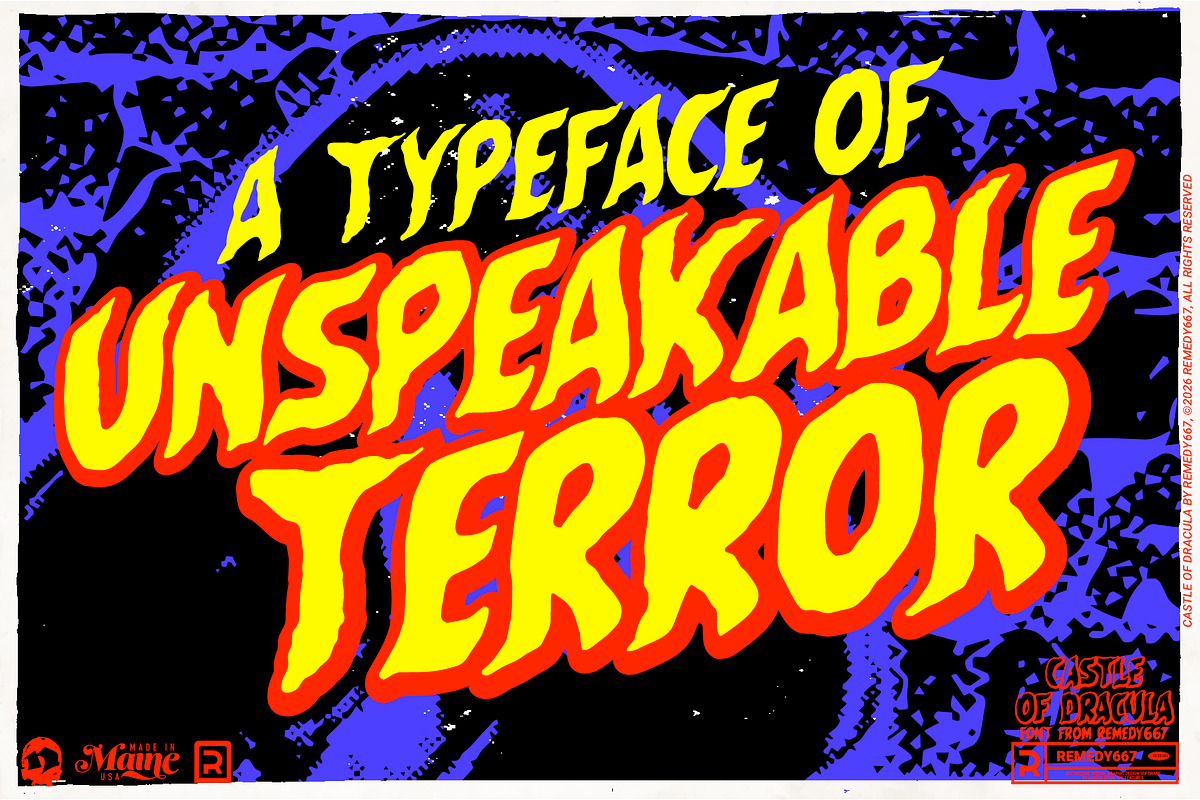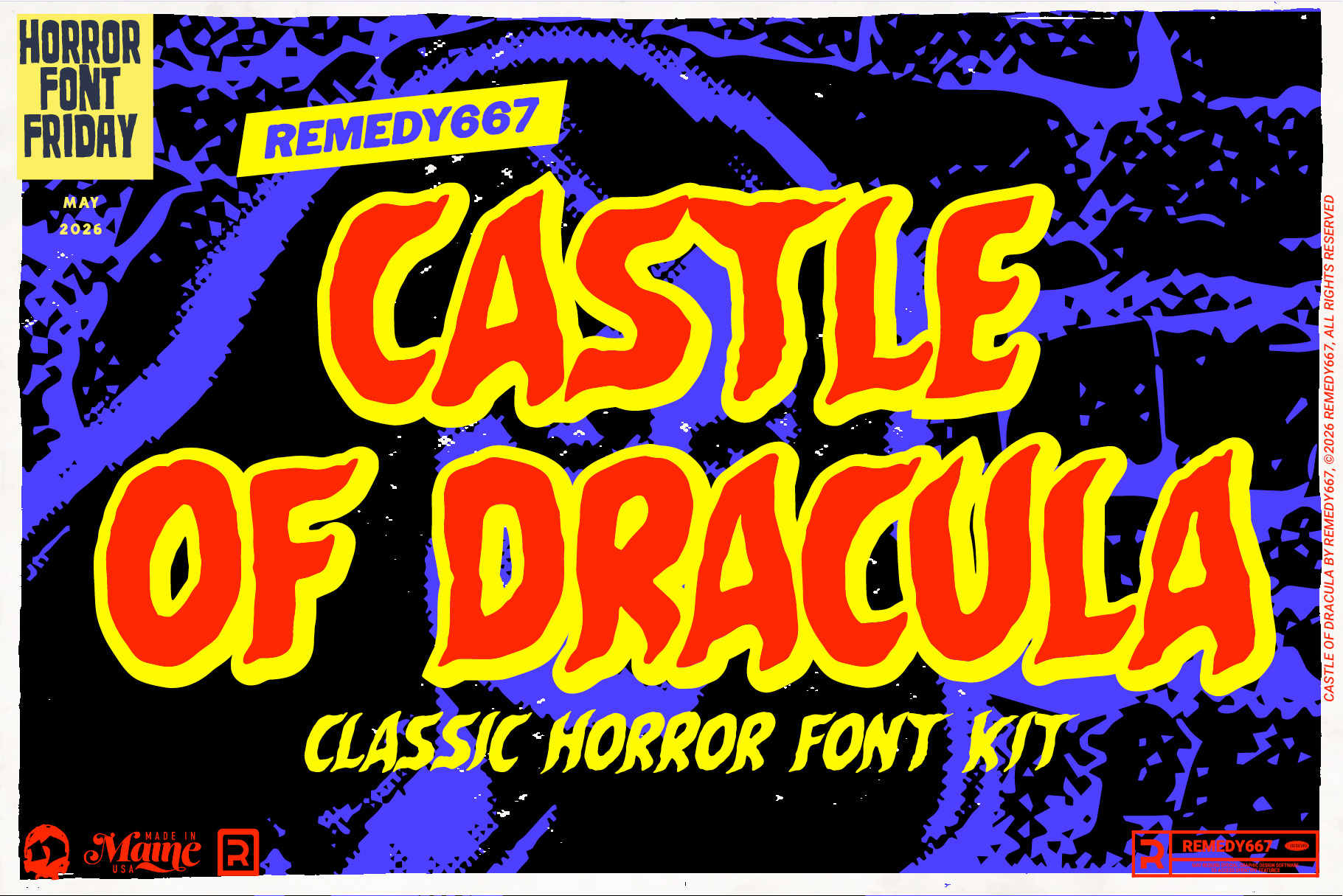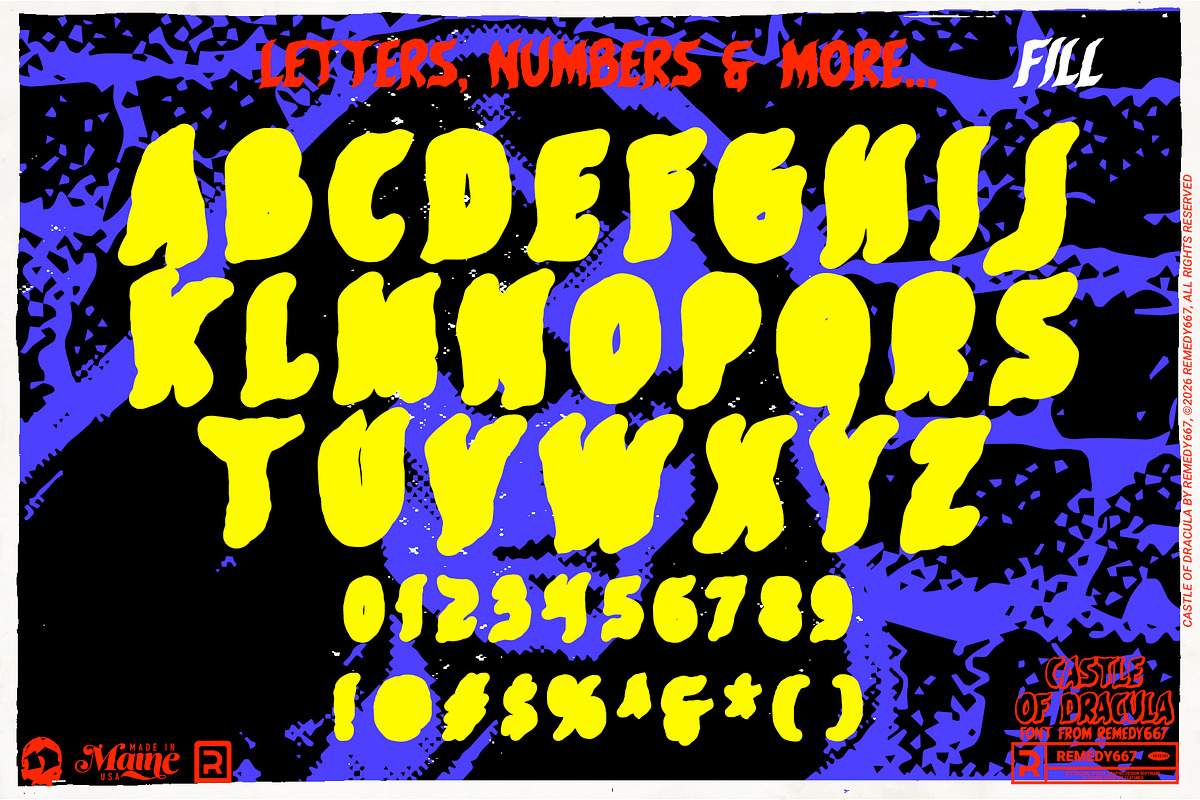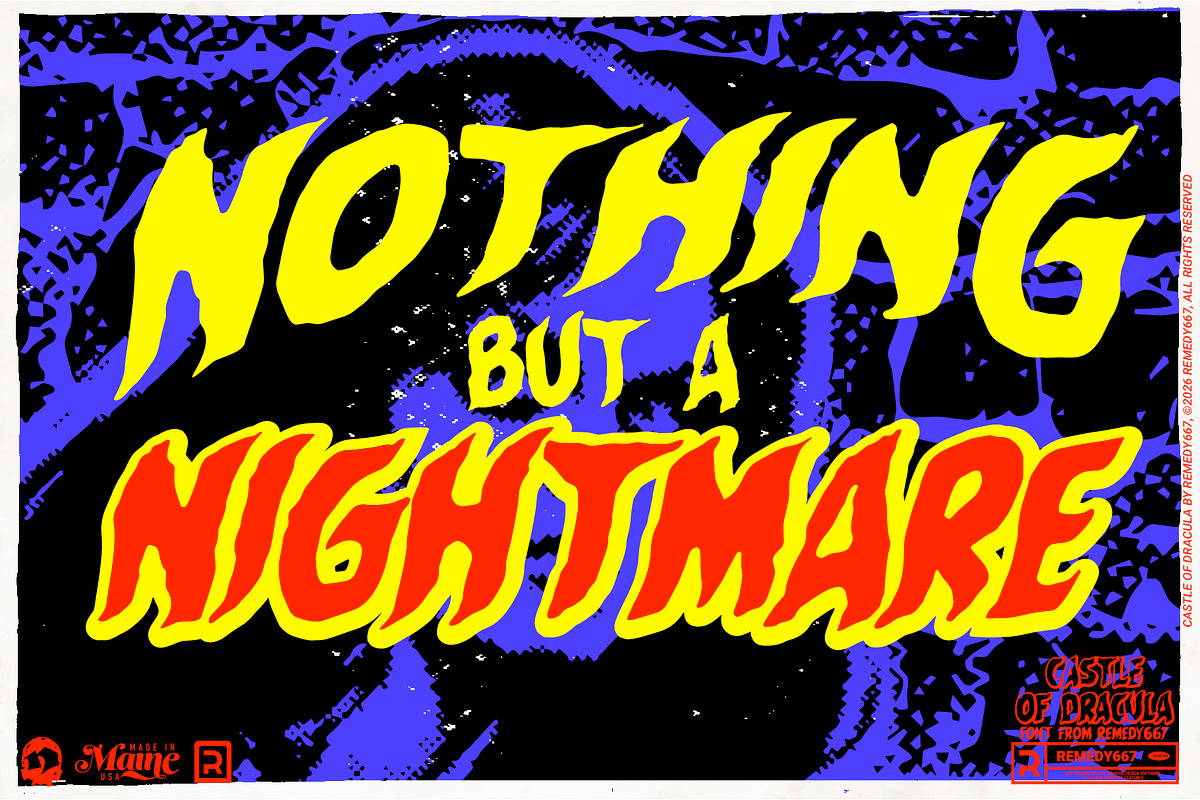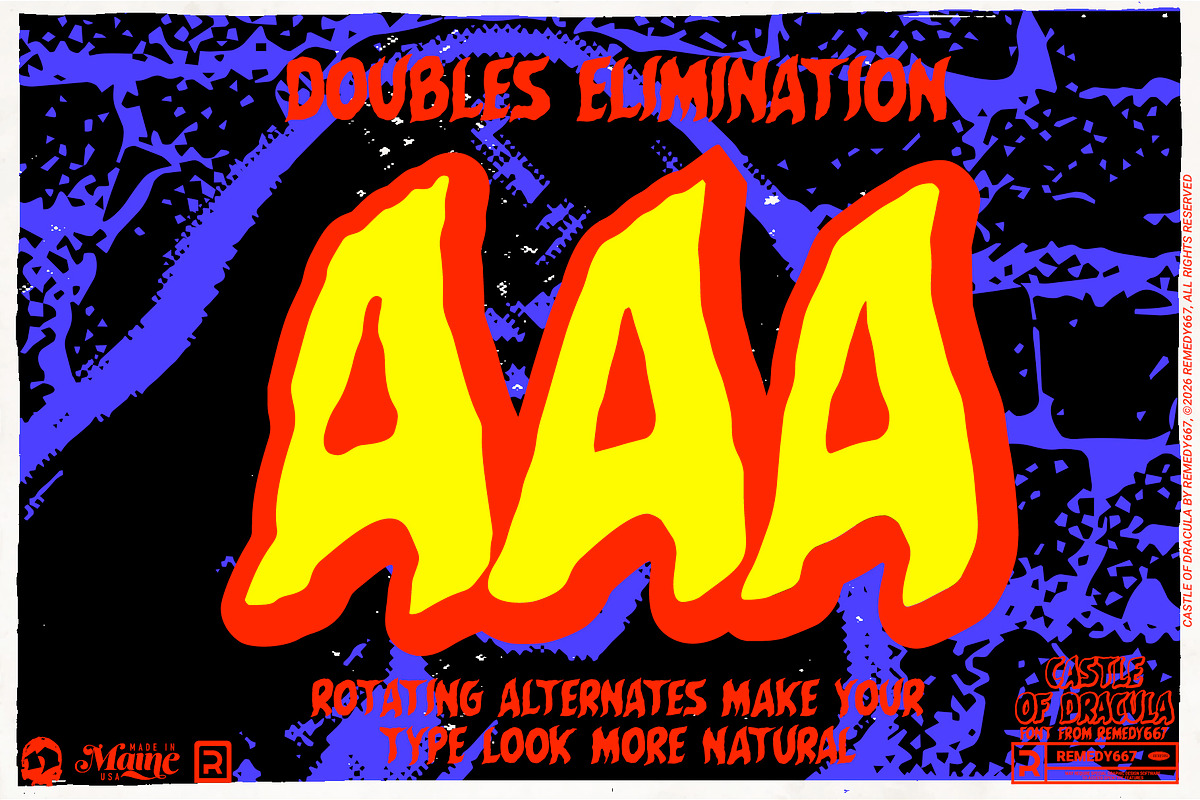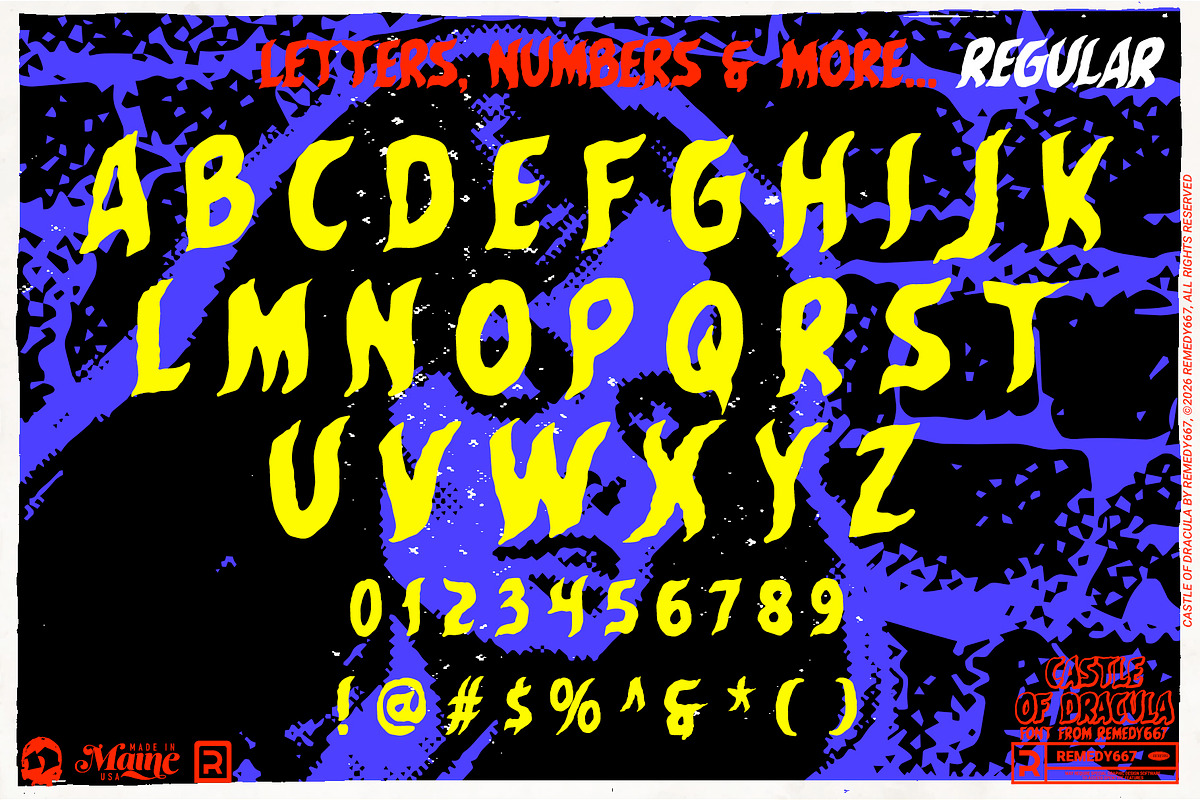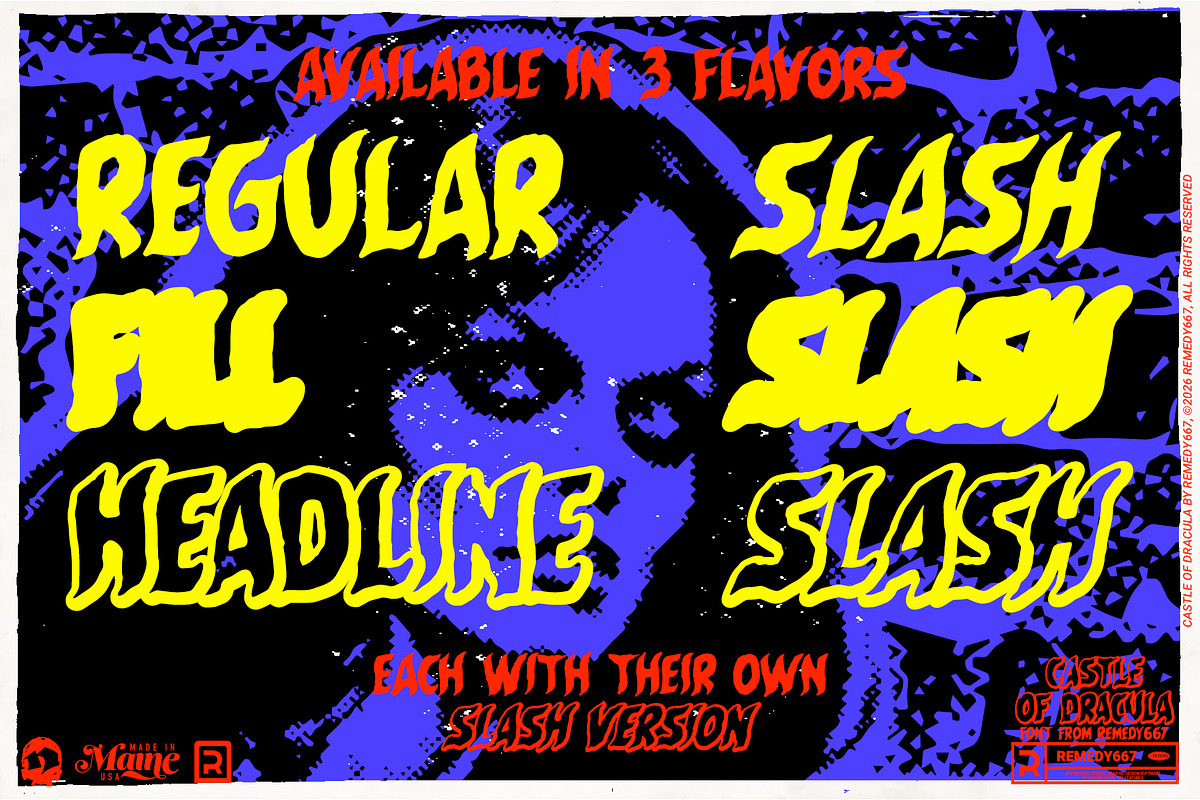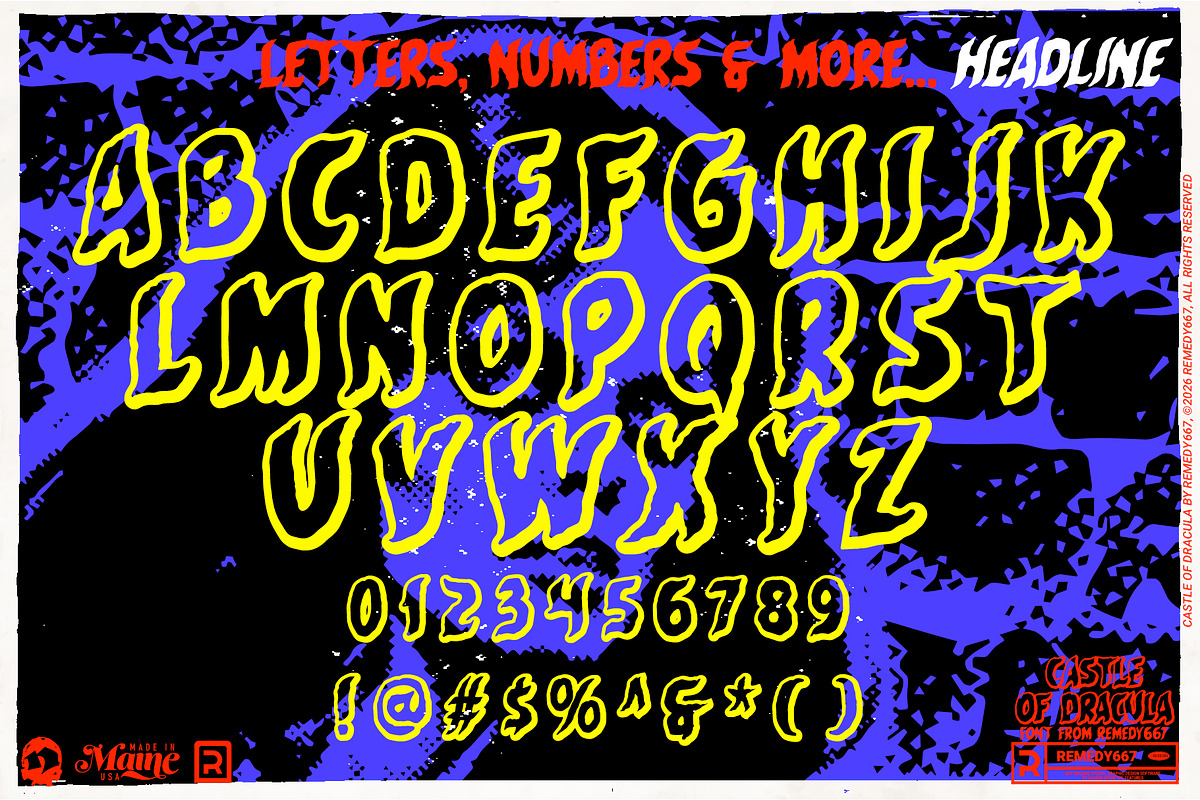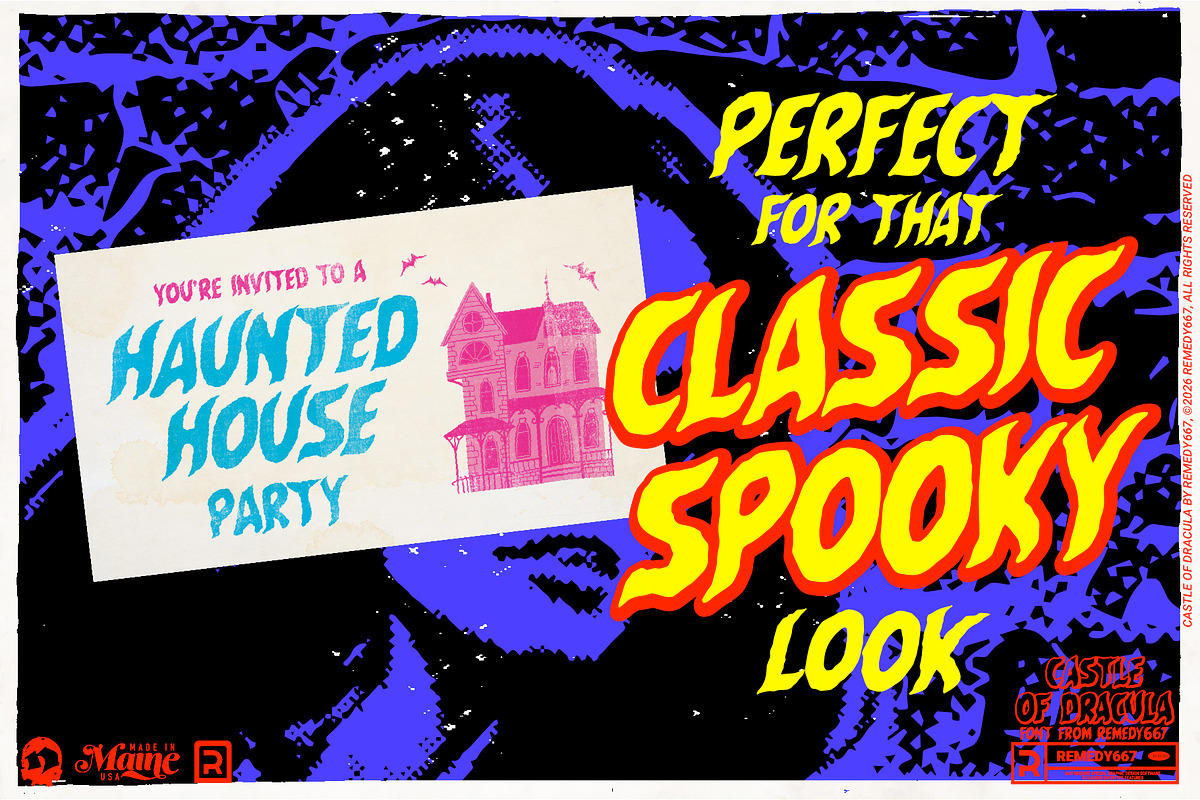
Castle of Dracula - Font
Welcome, foolish mortals, to the Castle of Dracula! Inspired by the fang-filled fury of Where Monsters Dwell #17 (1972), this typeface rises from the comic crypt with all the theatrical terror of classic vampire tales. Each character looms like a castle spire, or vampire fangs, ready to strike!
Perfectly crafted for both print and digital nightmares, Castle of Dracula captures the essence of vintage horror titling with bold, readable bite. Subtle variations give your words a lifelike rhythm, making our next project come alive… even in the dead of night.
Classic vampire-inspired lettering with vintage horror appeal
Rotating characters for natural, varied text flow
Strong readability for both print and digital use
Multilingual support for worldwide nocturnal designs